Typography plays an important role in shaping the visual character of a design. In the fashion industry, too, fonts do not only serve as text elements but also represent style and brand image. The use of the right luxury fashion font can enhance the elegant and professional impression of every appearance, whether for branding, catalogs, or promotional materials. This type of font has balanced proportions, smooth curves, and neat shapes, providing a luxurious feel without appearing excessive.
The right font can beautify a fashion label and help convey its message and value. Therefore, we have carefully curated a selection of luxury fonts specifically for fashion that will inspire you to enhance your design projects.
Bestlight is an elegant script font with a solid and dynamic brush character, creating a balance between casual style and elegant feel. Its brushstroke texture gives an authentic and strong feel that is perfect for menswear branding with a masculine and premium vibe. This font is superior in offering a classy image that maintains its natural look.
Offering a serene and classy vibe, Bluewind is an elegant script font with long swashes and a smooth writing rhythm. The letterform of this luxury fashion font is slim and proportional, creating a graceful and easily readable visual, perfect for this list.
Fustier has a smooth and elegant appearance, especially with its tall and flowing letterform combined with harmonious decorative accents. Blending dark green and warm brown colors, Fustier exudes a natural and feminine feel that works perfectly for fashion branding with an earthy and classy theme.
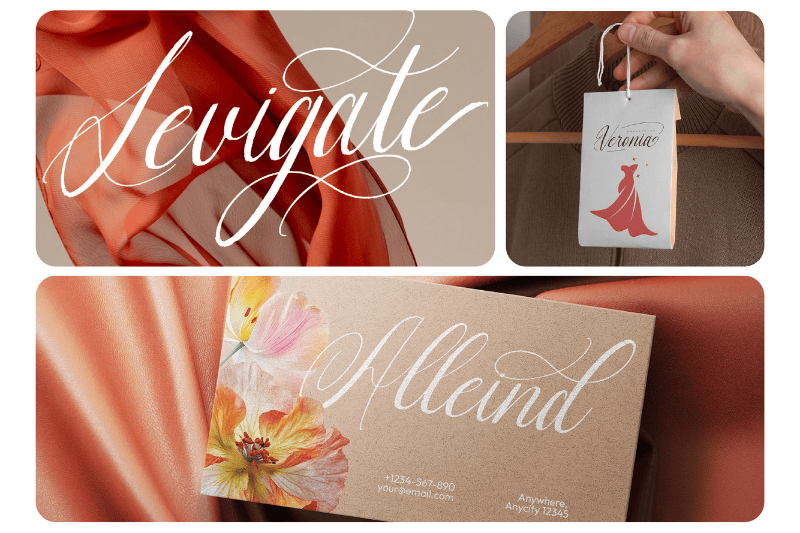
This font captivates with its long, gently swaying strokes, giving off an elegant appearance reminiscent of a luxury gown. Levigate is a luxury fashion font worth using, thanks to its various thickness weights that provide noticeable contrast while remaining smooth. If you use it in combination with the terracotta color in your branding design, your brand image will undoubtedly look more striking and sophisticated.
The branding design of Rattine presents a clean and elegant vibe with white as the dominant color that exudes modernity. The Chatter Filled font is a calligraphy script font that looks neat and thin, creating a smooth look without losing its solid letterform. This font has a modern and smooth character, making it ideal for boutique logos or the visual identity of a fashion brand that seeks an exclusive and sophisticated vibe.
The entire design above features clean coloring and a serene composition, giving it a modern and professional image. The Mildenst font chosen in the design adds to the ambiance with its thin letterforms, wide spacing, and long, smoothly flowing swashes. This luxury fashion font has a clean structure and a light vibe, making it appear elegantly casual and contemporary.
The branding design above stands out thanks to its lavender and dusty mauve color combination. Supported by the Elegise font that exudes gracefulness in each of its strokes, the overall look screams perfection, stylishness, and femininity. As a result, using Elegise is an ideal option for exclusive fashion labels, hang tag designs, and boutiques’ rounded signs.
Milleyona has a slim letterform with artistic linings and rustic swashes, creating a stunning, luxurious, and exclusive appearance. The distinctive characteristic of this luxury fashion font is its wavy linings on each character, which make it stand out among others. In the preview above, the Milleyona font blends perfectly with the earthy colors and skin elements, especially because of its luxurious and rustic style.
Having a feminine and warm character, Slinces Heart features a harmonious composition of neutral colors like cream and brown above. This font is dominated by features like thin swashes and elongated vertical lines, creating light and elegant brushstroke feels.
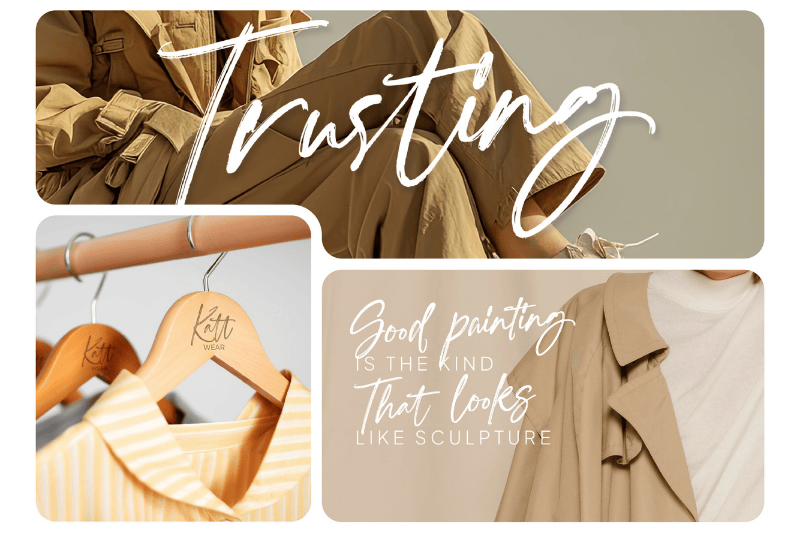
With solid brush swashes and smooth textures, Trusting is a luxury fashion font that is perfect to evoke a sense of dynamics and confidence. The design features thicker letters in the focal point, fading elegantly at the end of the strokes, creating a powerful yet harmonious look. Trusting perfectly conveys the essence of minimalist fashion branding, offering an exclusive appeal while maintaining a casual and authentic vibe.
All of these luxury fashion font collections will surely enhance your design games to the next level and creatively build the identity and story behind each of the fashion brands. The premium fashion fonts above show that letterforms and visual rhythm may add elegance. Font choice will strengthen and unify the brand’s message.
Choose a luxury fashion font that matches your brand’s identity, and let each letter express your elegance.